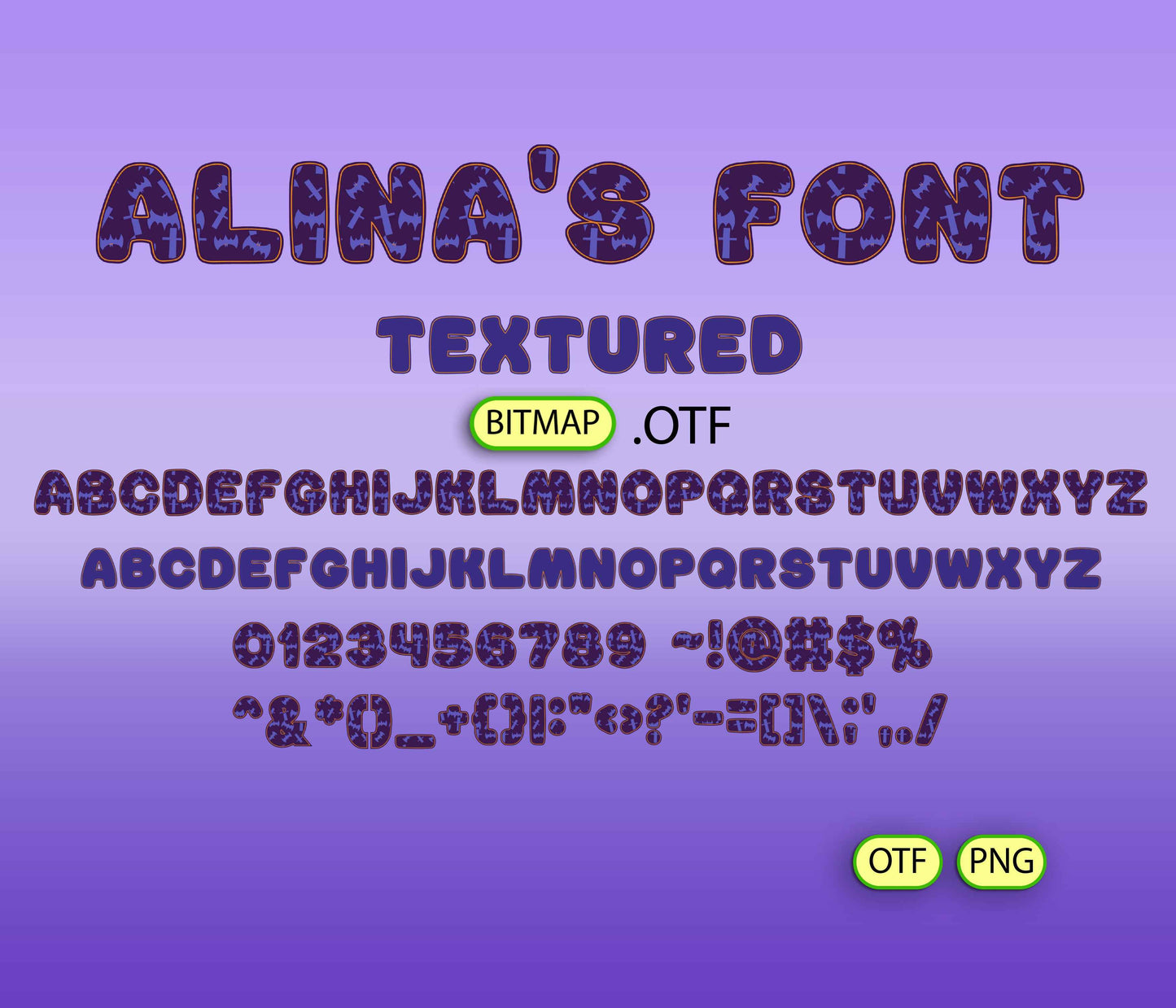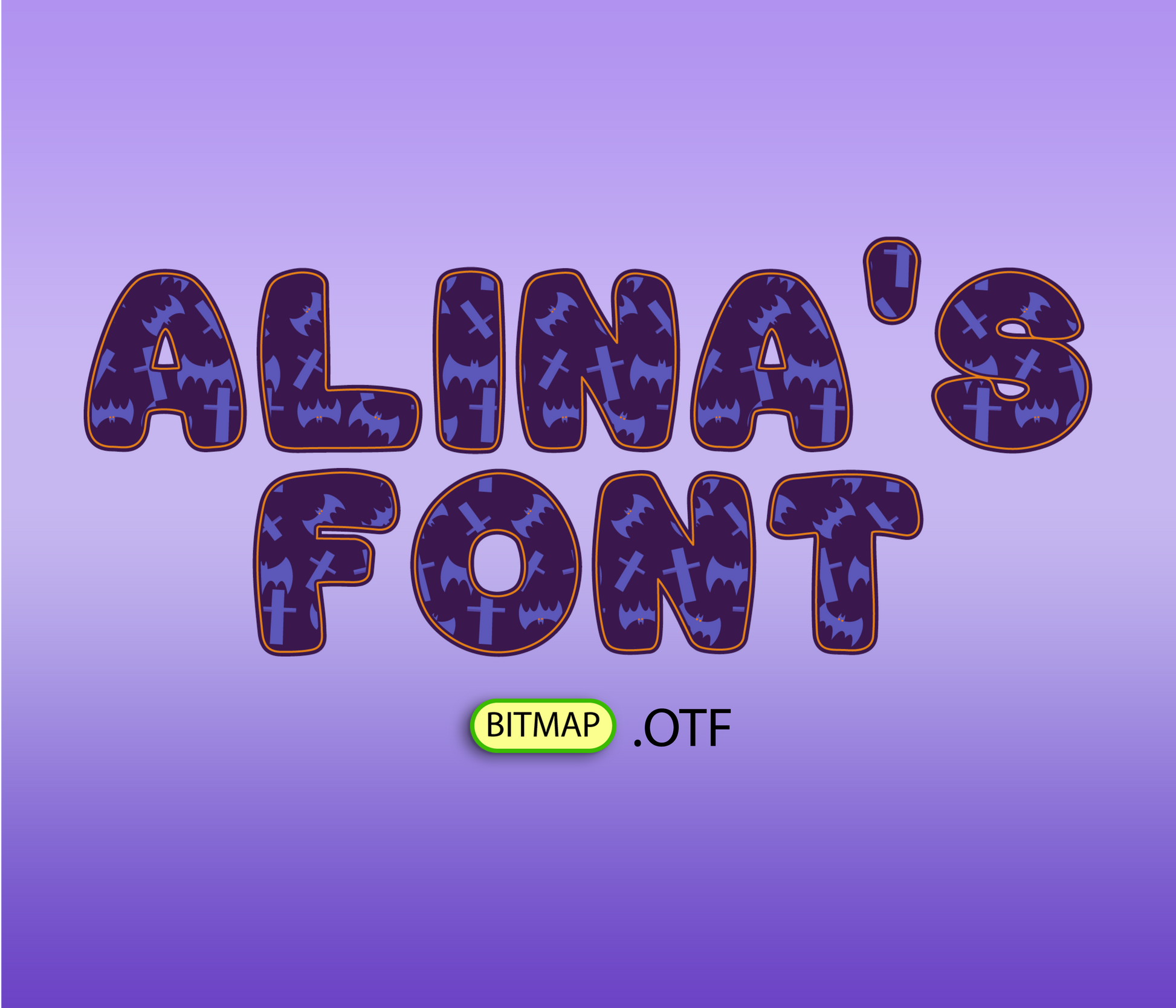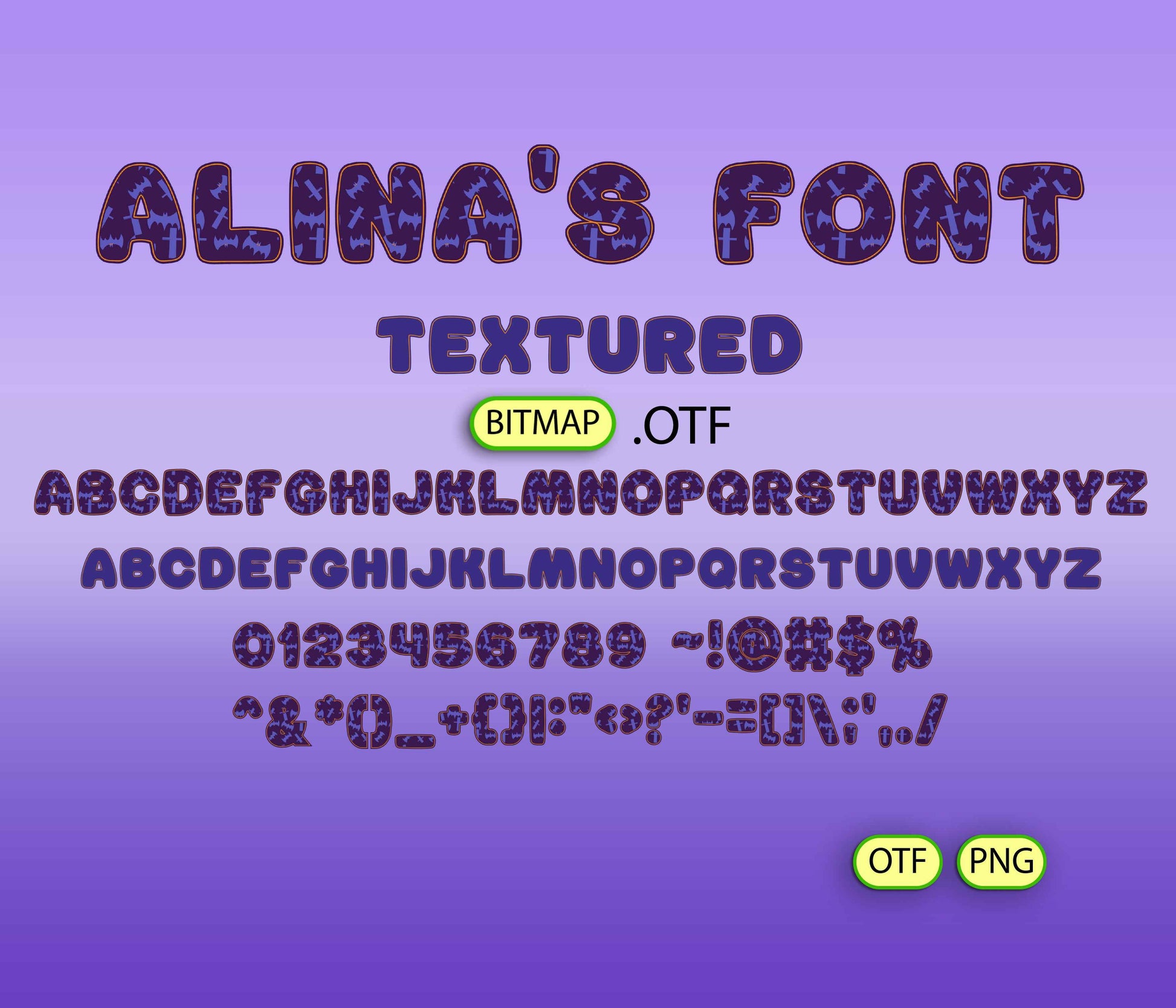
Halloween Color Pattern Font
The Mysterious Charm of Halloween Spooky Color Pattern Font
Step into the realm of shadows and whispers with our Halloween Spooky Elements Color Pattern Bundle Fonts, a collection that embodies the essence of Halloween night. This bundle is a celebration of all things spooky and mysterious, featuring fonts adorned with Halloween-themed elements like ghosts, witches, bats, and cobwebs, all brought to life in vivid colors. Perfect for those looking to infuse their projects with the spirit of Halloween, each font in this bundle is a gateway to tales of the eerie and uncanny.
What font is the Halloween Color Fonts?
Imagine a series of typefaces where each character is a mosaic of Halloween's most iconic symbols, intricately designed in a spectrum of haunting colors. These fonts are crafted not just for readability, but to visually narrate the stories and folklore associated with Halloween. The bundle includes a comprehensive character set for each font, covering alphabets, numbers, and special symbols, making it a versatile toolkit for creating everything from party invitations to haunted house signage.
What Can You Do With Halloween Color Fonts?
The Halloween Spooky Elements Bundle is perfect for a variety of mystical and fun applications:
- Halloween Event Invitations: Create compelling invitations for Halloween parties, events, or ghost tours.
- Seasonal Marketing Materials: Enhance promotional content for Halloween sales, events, or special offers.
- Themed Decorations: Design atmospheric banners, posters, and signs for Halloween décor.
- Custom Apparel: Fashion spooky clothing and accessories for Halloween festivities.
- Digital Graphics and Web Design: Spice up websites, social media posts, and digital content with a Halloween flair.
- Educational Resources: Use in classroom materials for Halloween-themed lessons or activities.
- Packaging and Labeling: Design unique packaging for Halloween products or themed goods.
- Greeting Cards and Stationery: Create personalized stationery and cards with a touch of Halloween magic.
- Creative Art and DIY Projects: Ideal for scrapbooking, crafting, and artistic endeavors inspired by Halloween.
- Retail and Window Displays: Craft eye-catching displays and signage for retail spaces during the Halloween season.
The Halloween Spooky Elements Color Pattern Bundle Fonts is not just a collection of typefaces; it's an exploration into the heart of Halloween.